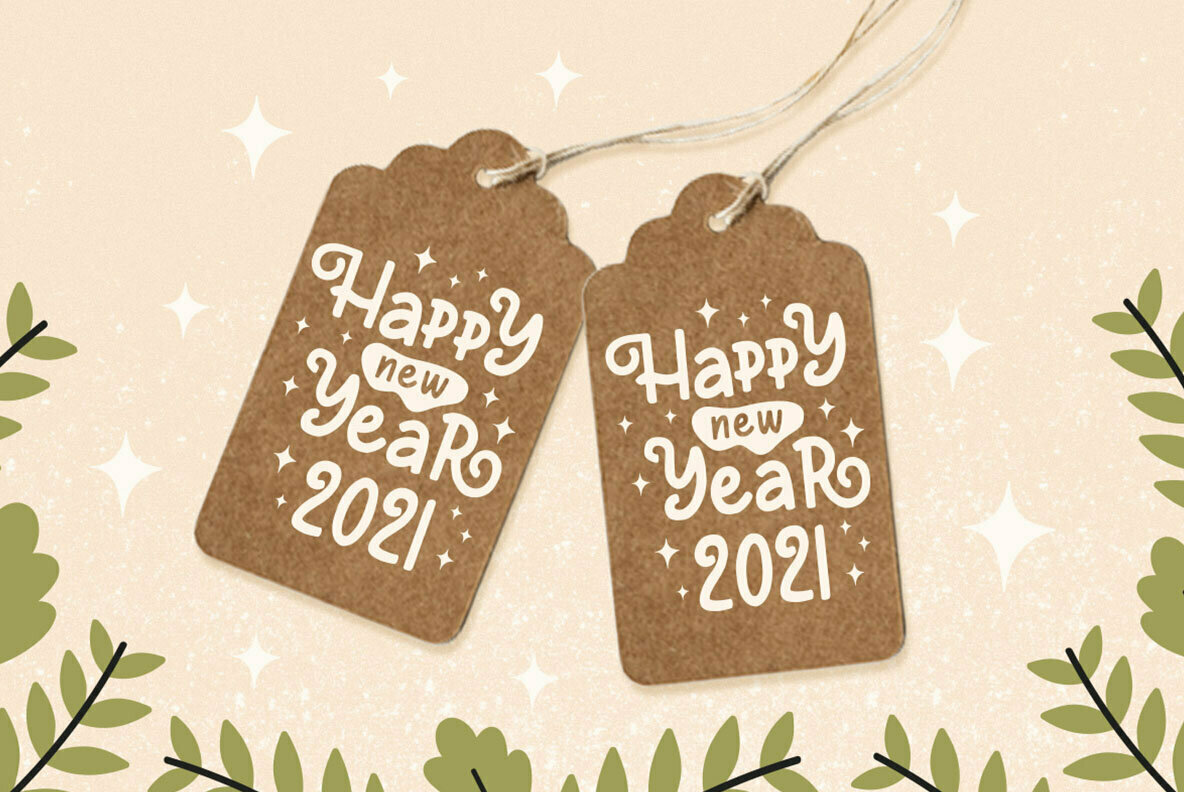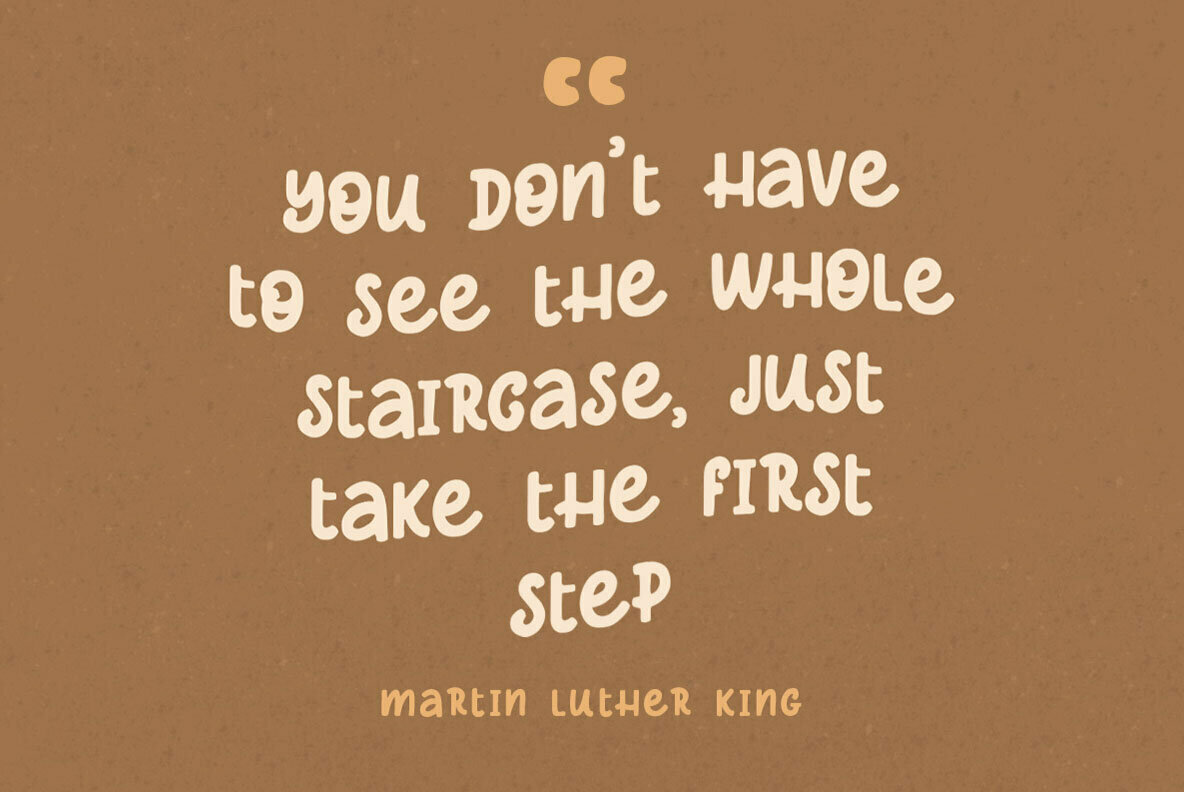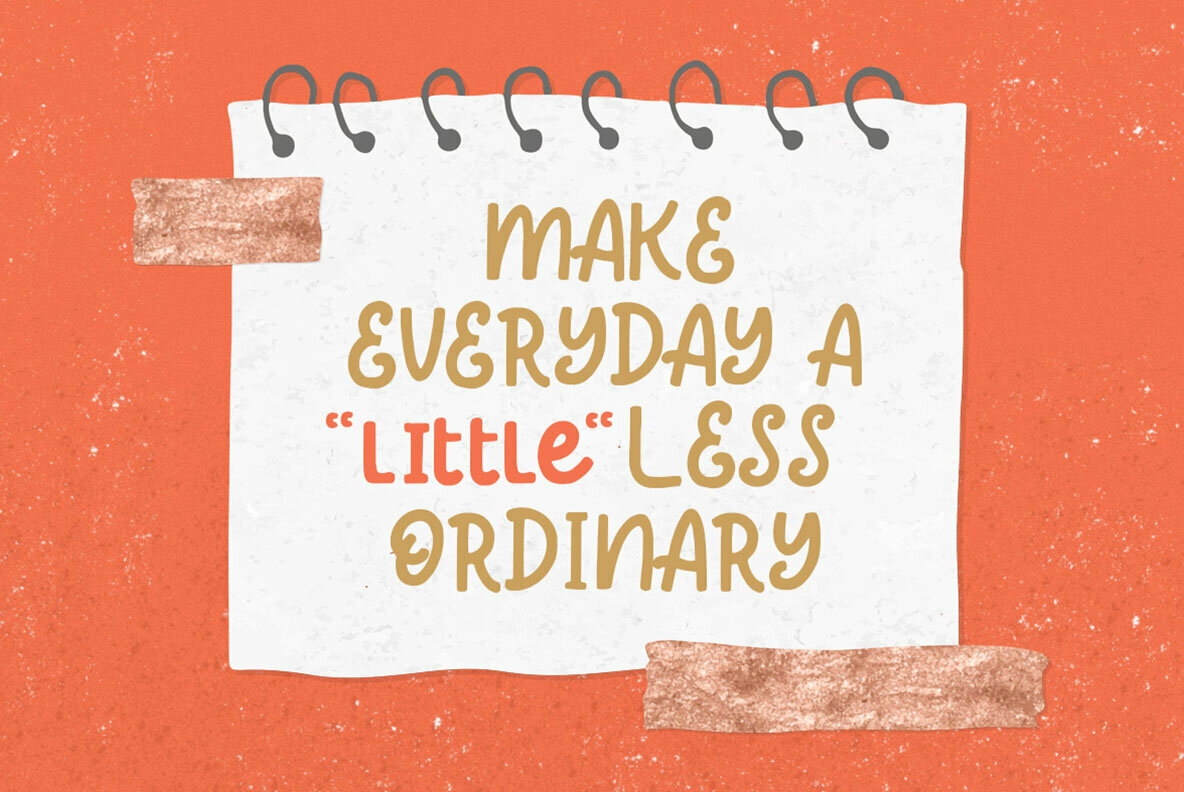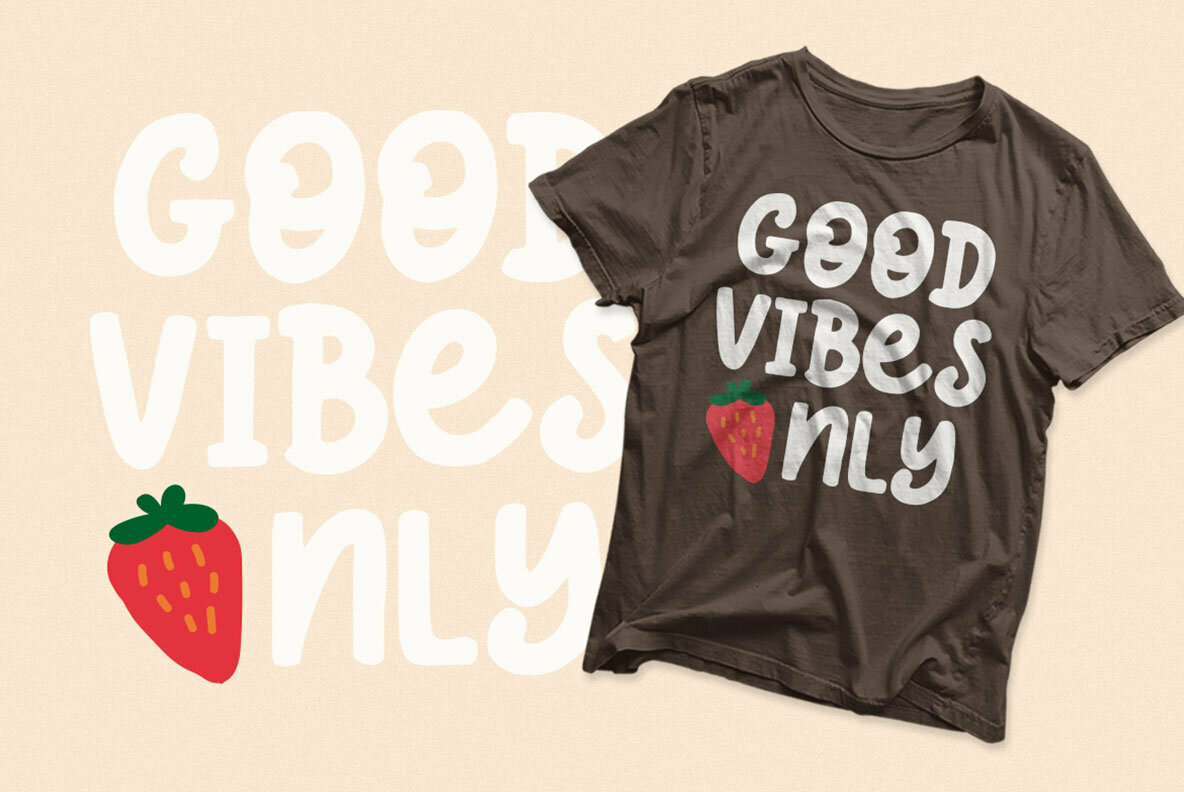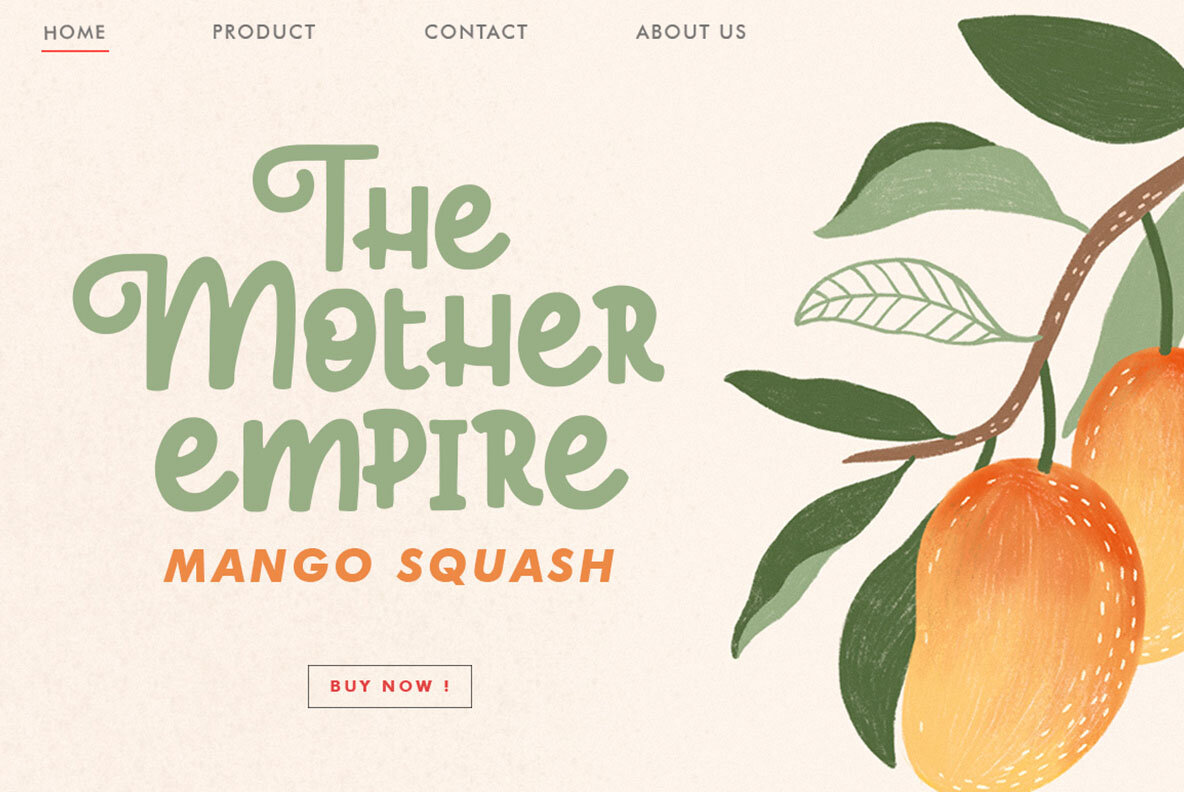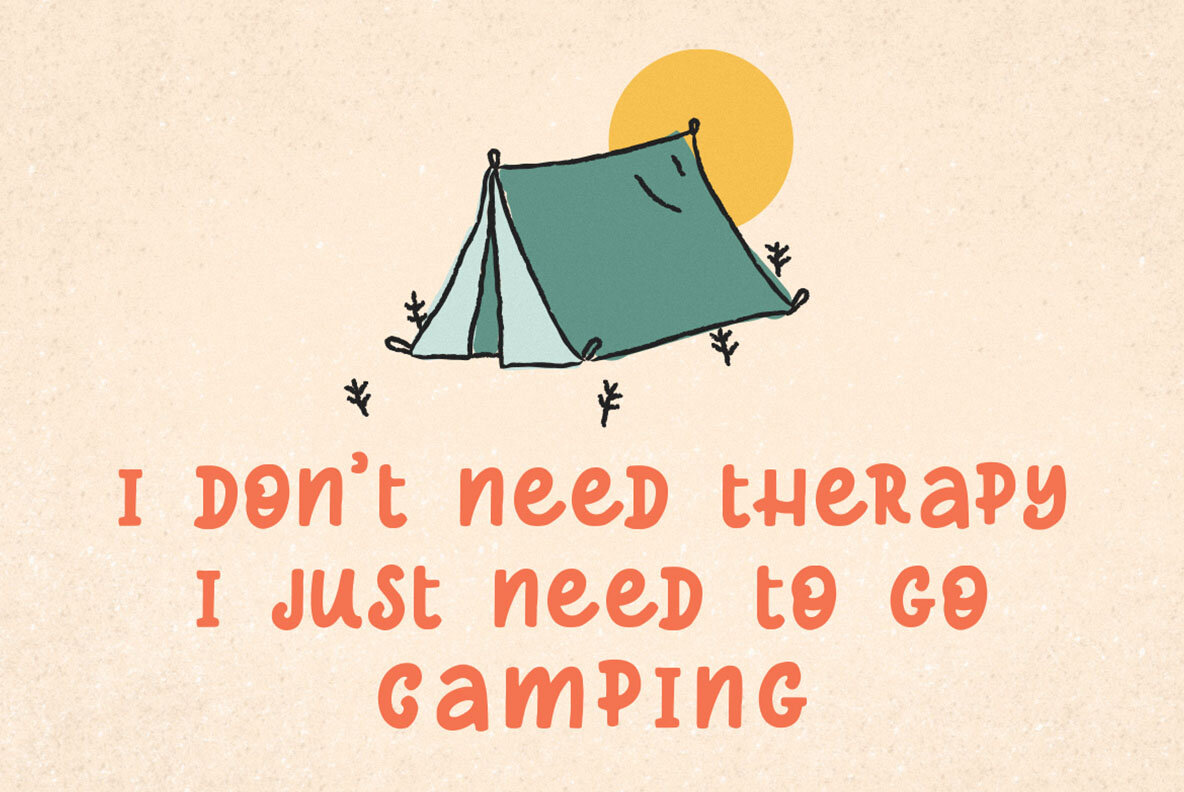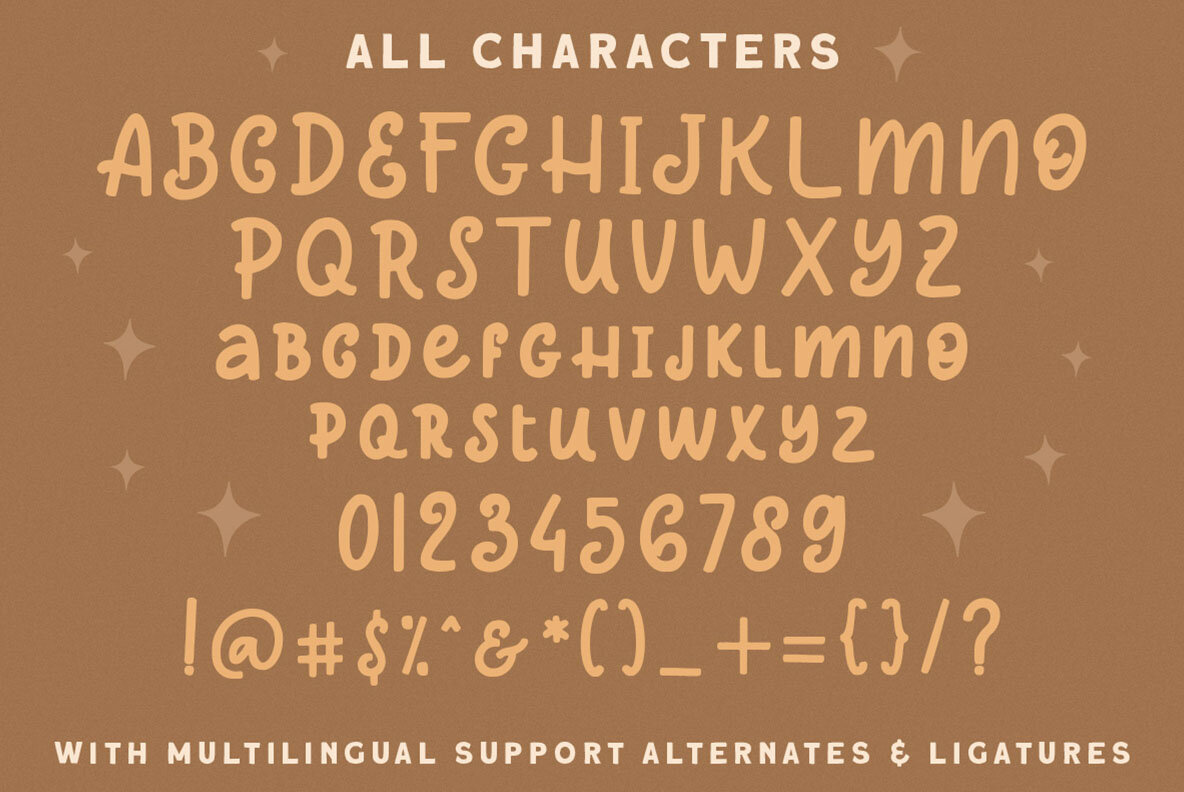
Asterluck: Quirky Display Font with Unique Flair
Asterluck injects a sense of whimsy into any design. With its distinctive shapes, this font excels in creating a playful and casual atmosphere. It is an excellent choice for logo design, and its versatility extends seamlessly across several formal applications, including invitations, labels, magazines, and more.
• Unique Shapes – Stands out with its distinctive style.
• Versatility – Suitable for both casual themes and formal designs.
• Wide Application – Ideal for logos, invitations, packaging, and advertisements.